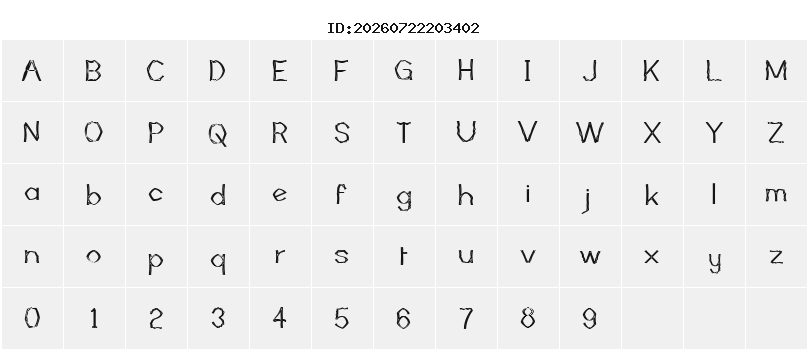
• Font Name: Mutant Bamboo II
• Designer: Graham Meade
About Mutant Bamboo II.ttf
Mutant Bamboo II.ttf is a modern, elegant sans-serif font designed for ultimate readability and visual harmony. Perfect for branding, headlines, web design, and print materials.